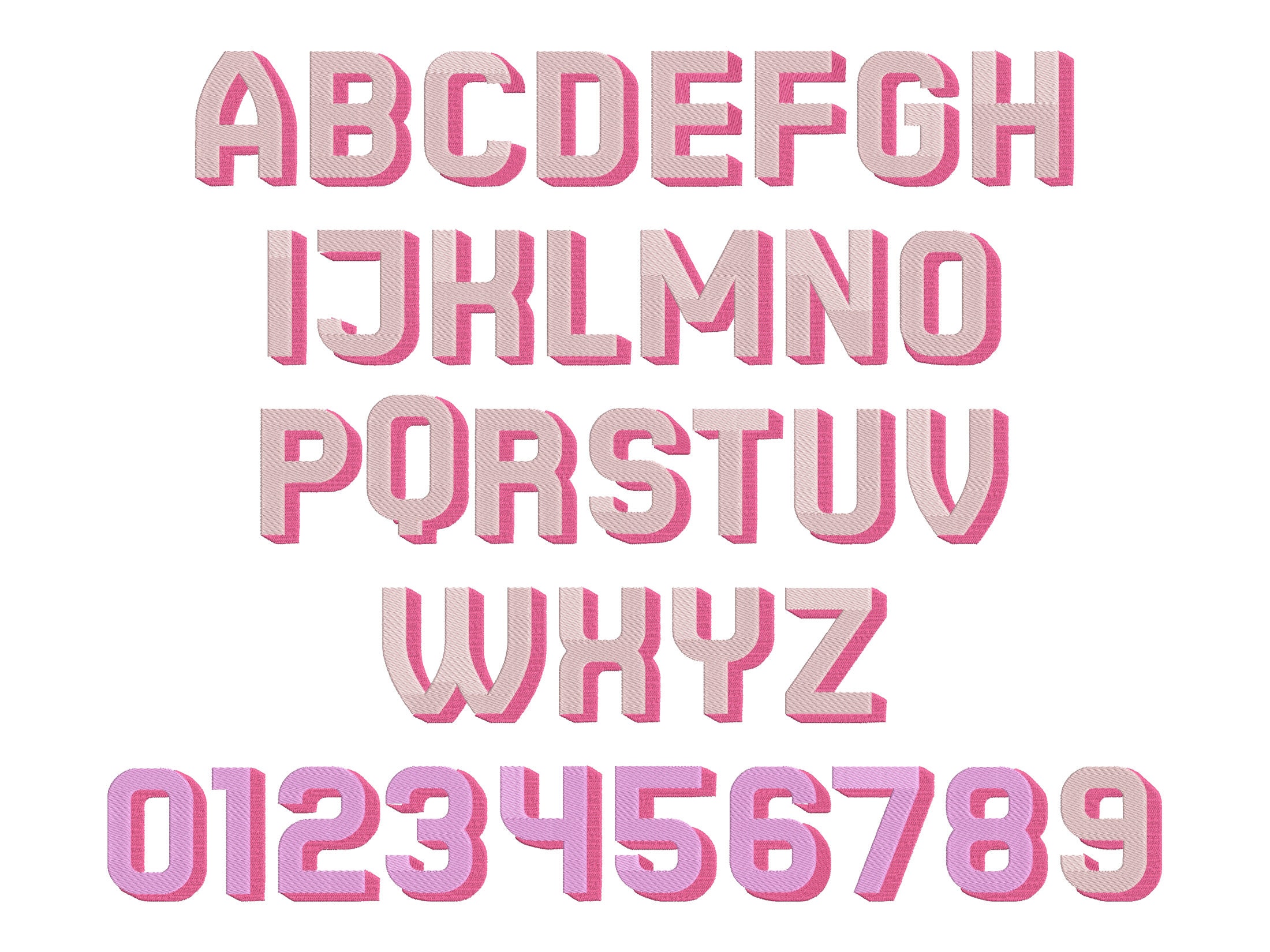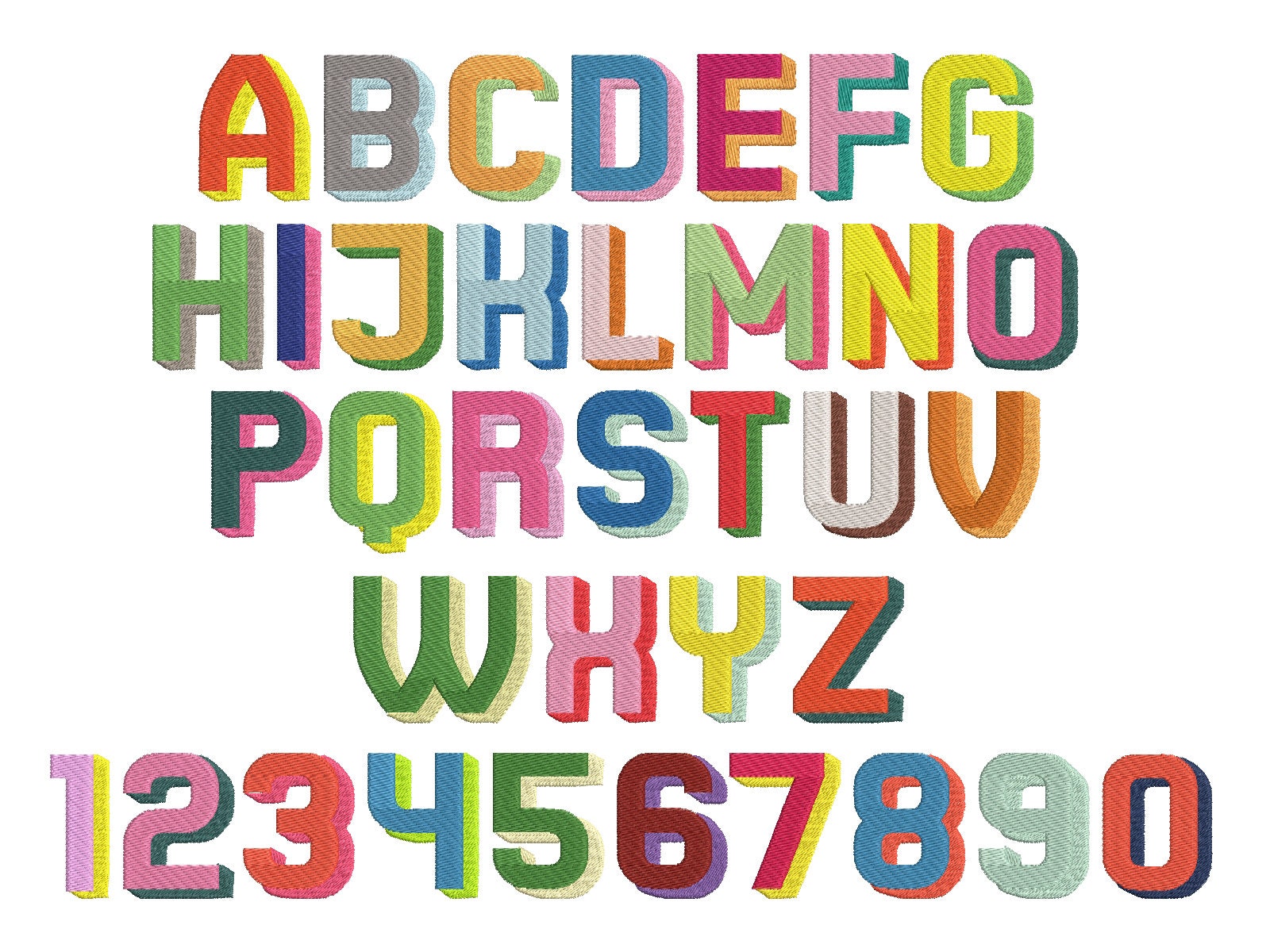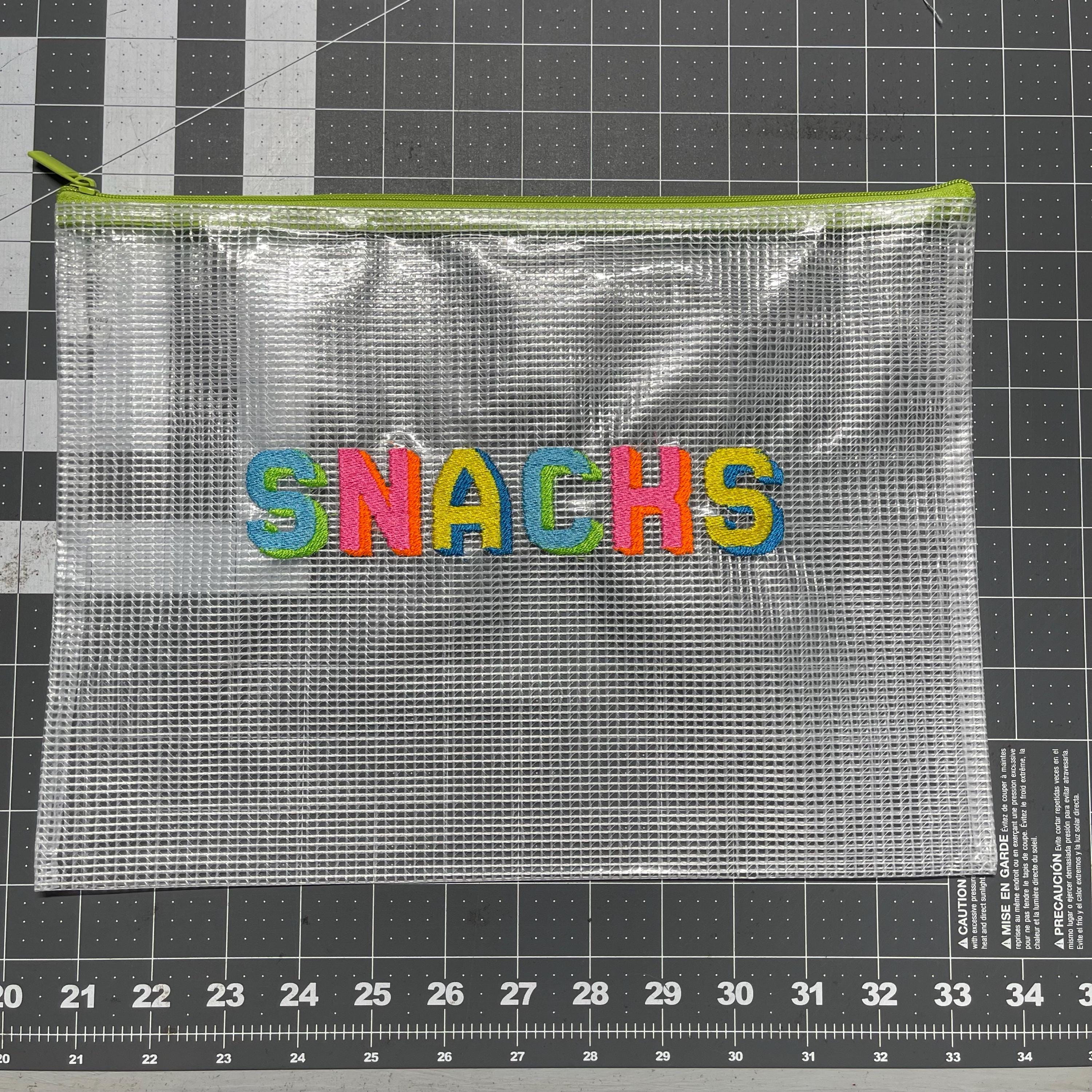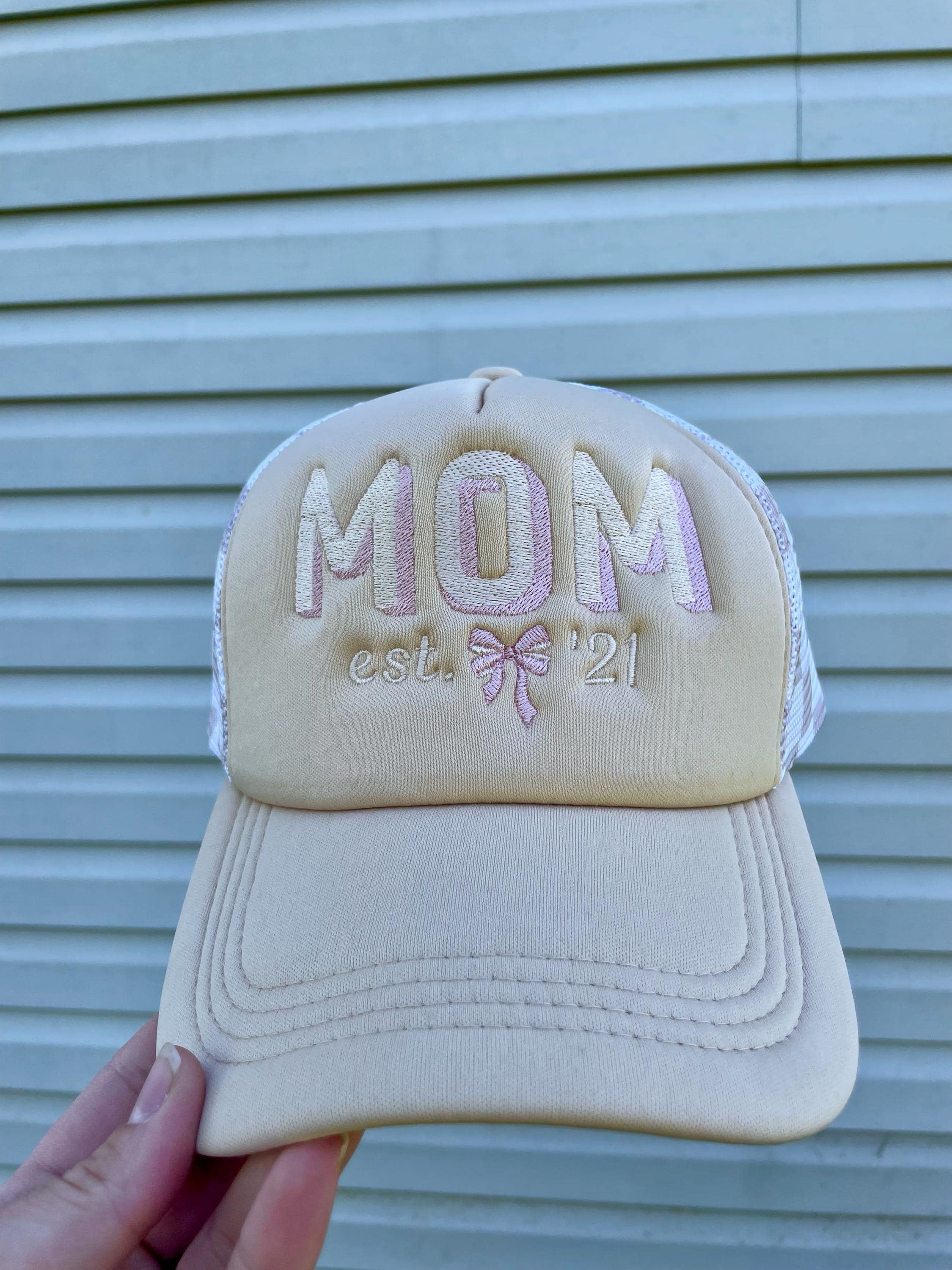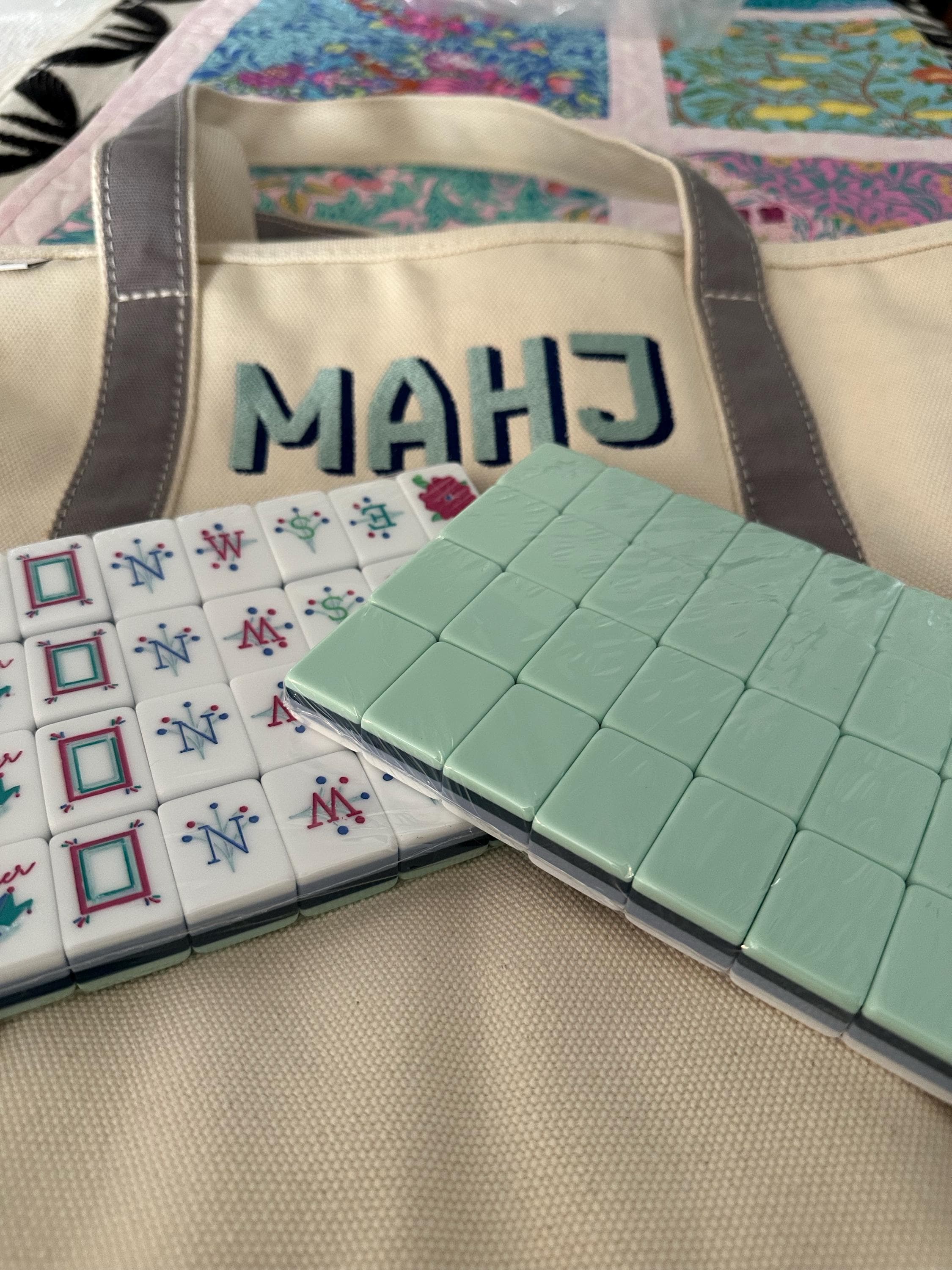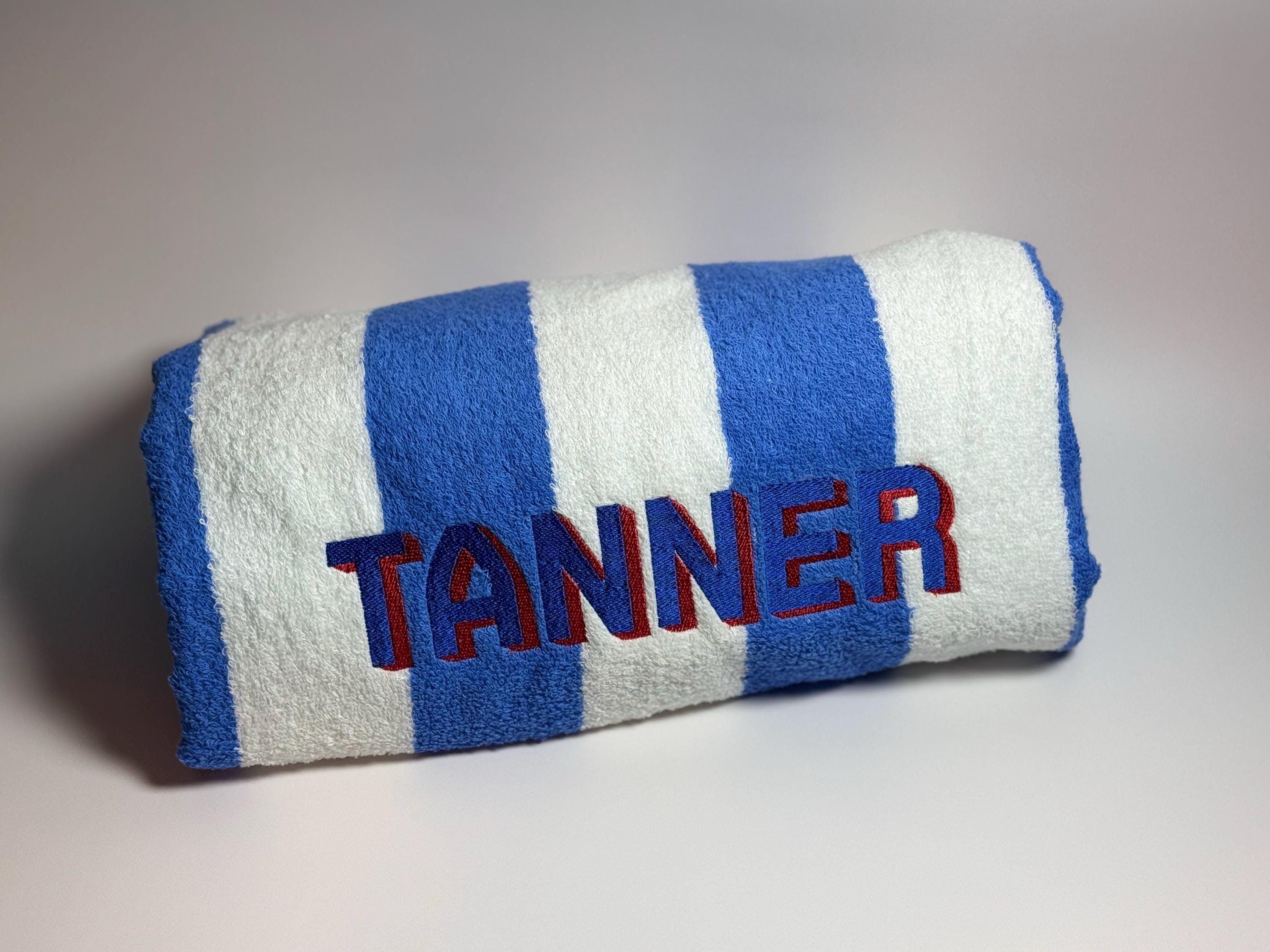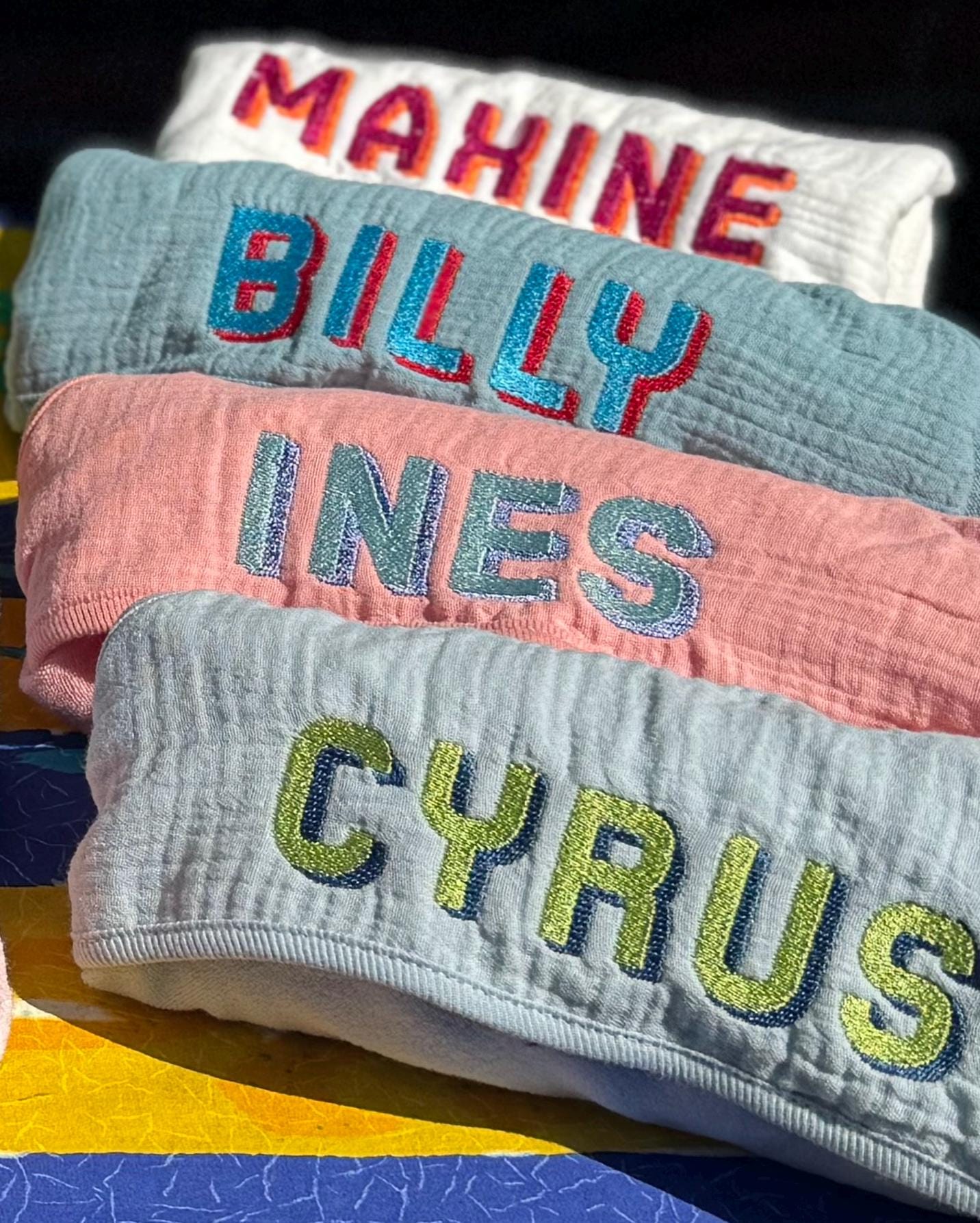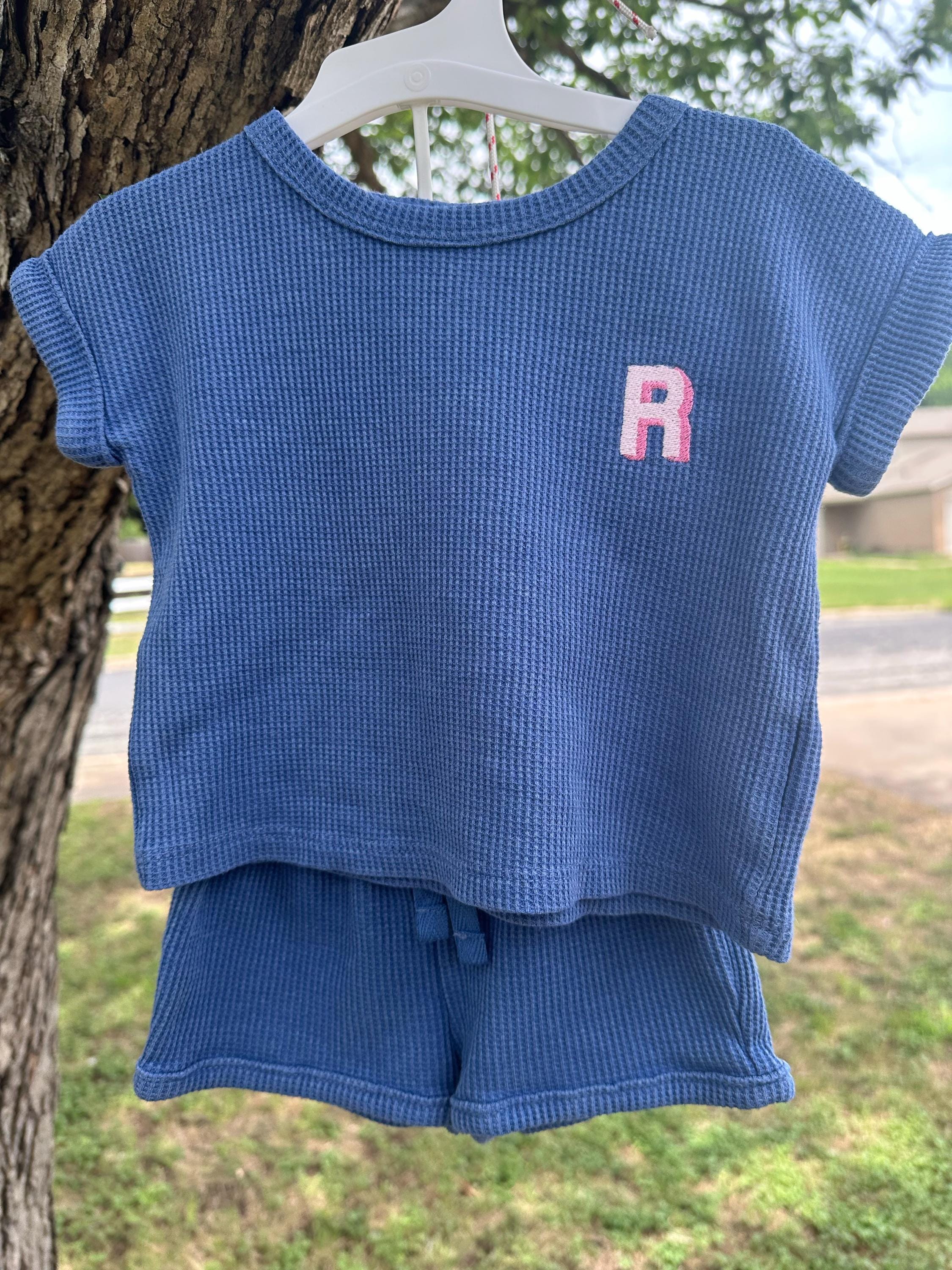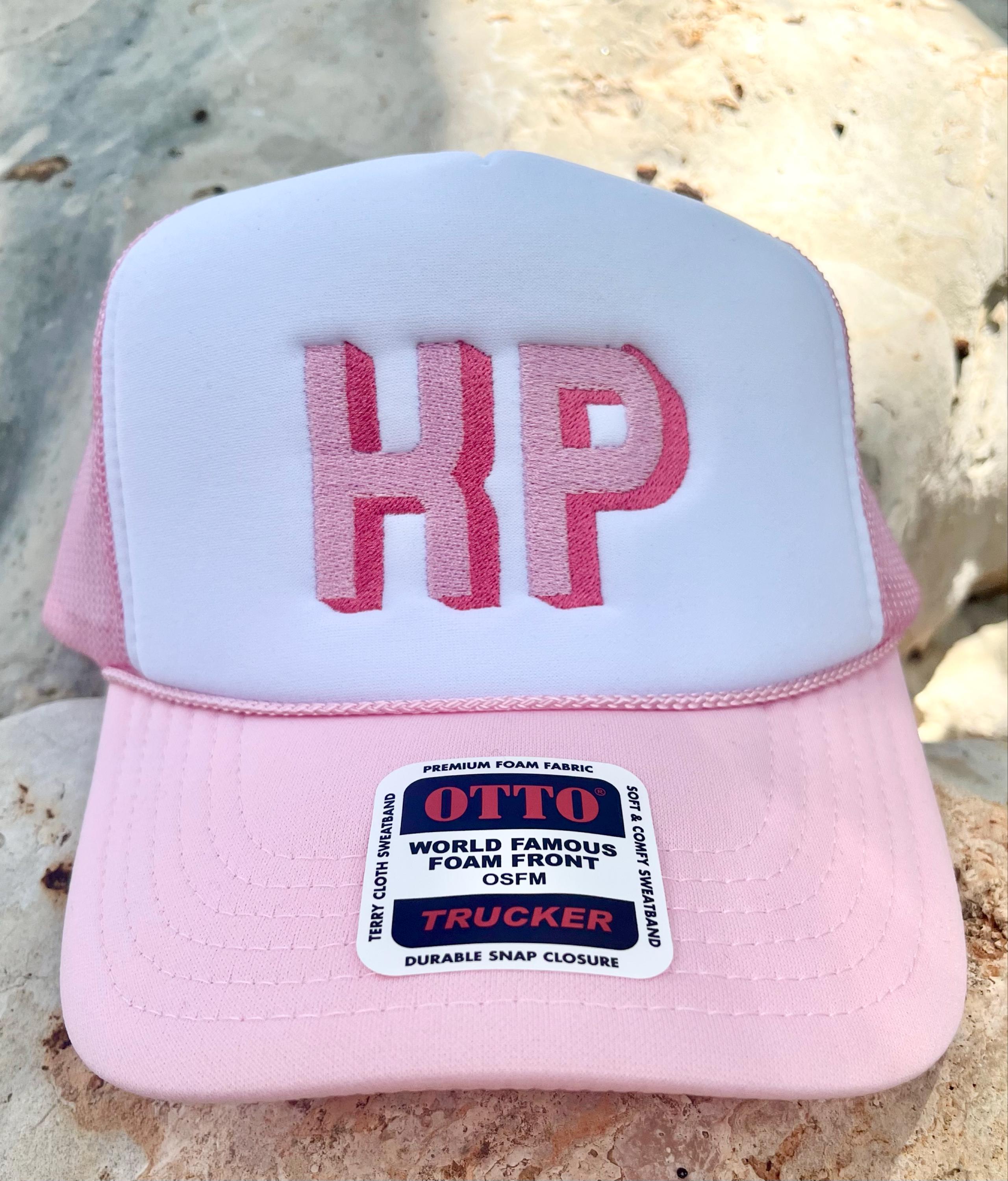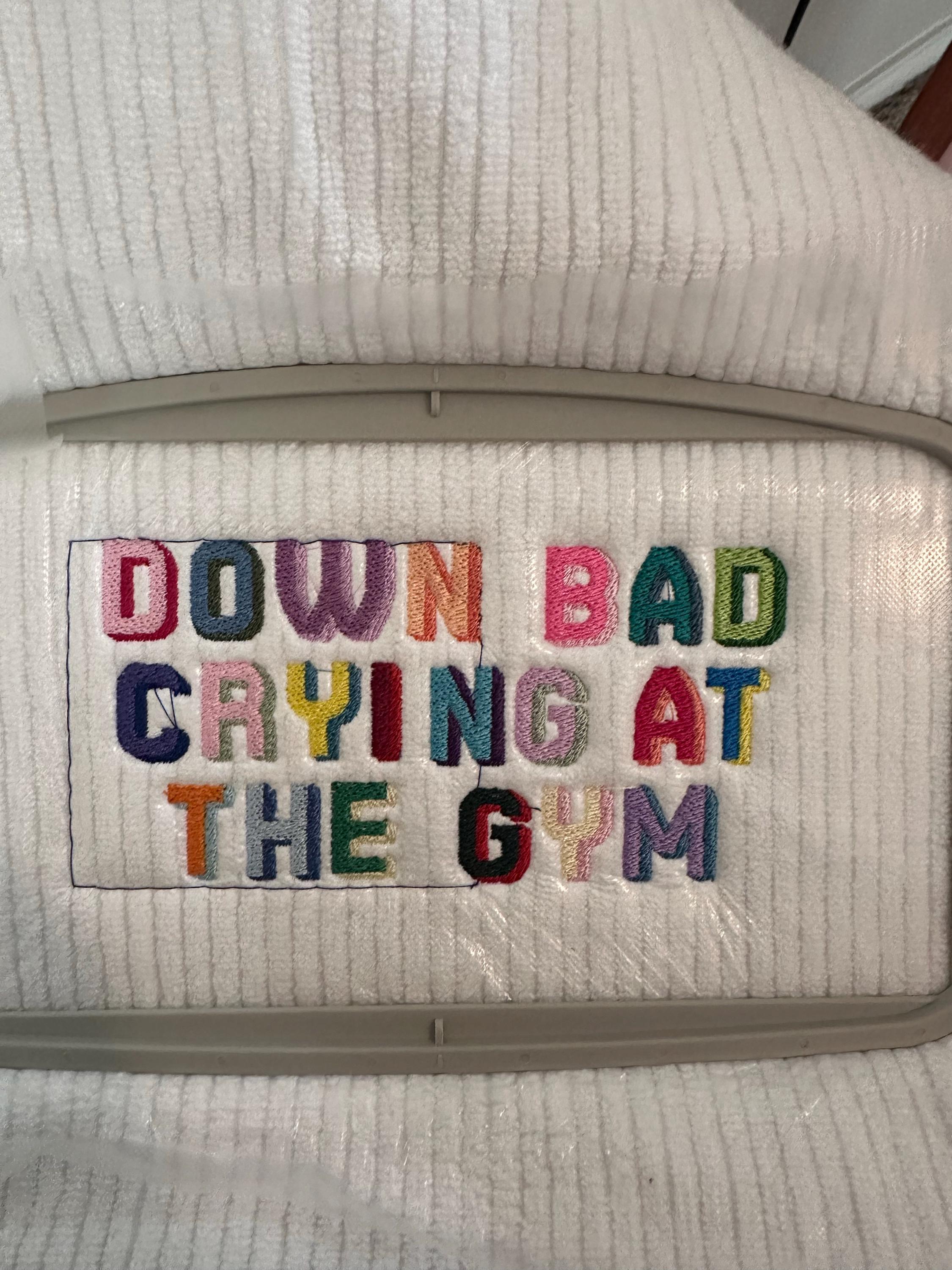
Shadow font machine embroidery design sizes 1, 1.2, 1.5, 2, 2.4 and 3 inches shadowed monogram colorful embroidery font sport block Font
Whole alphabet A-Z uppercase letters, and numbers 0-9